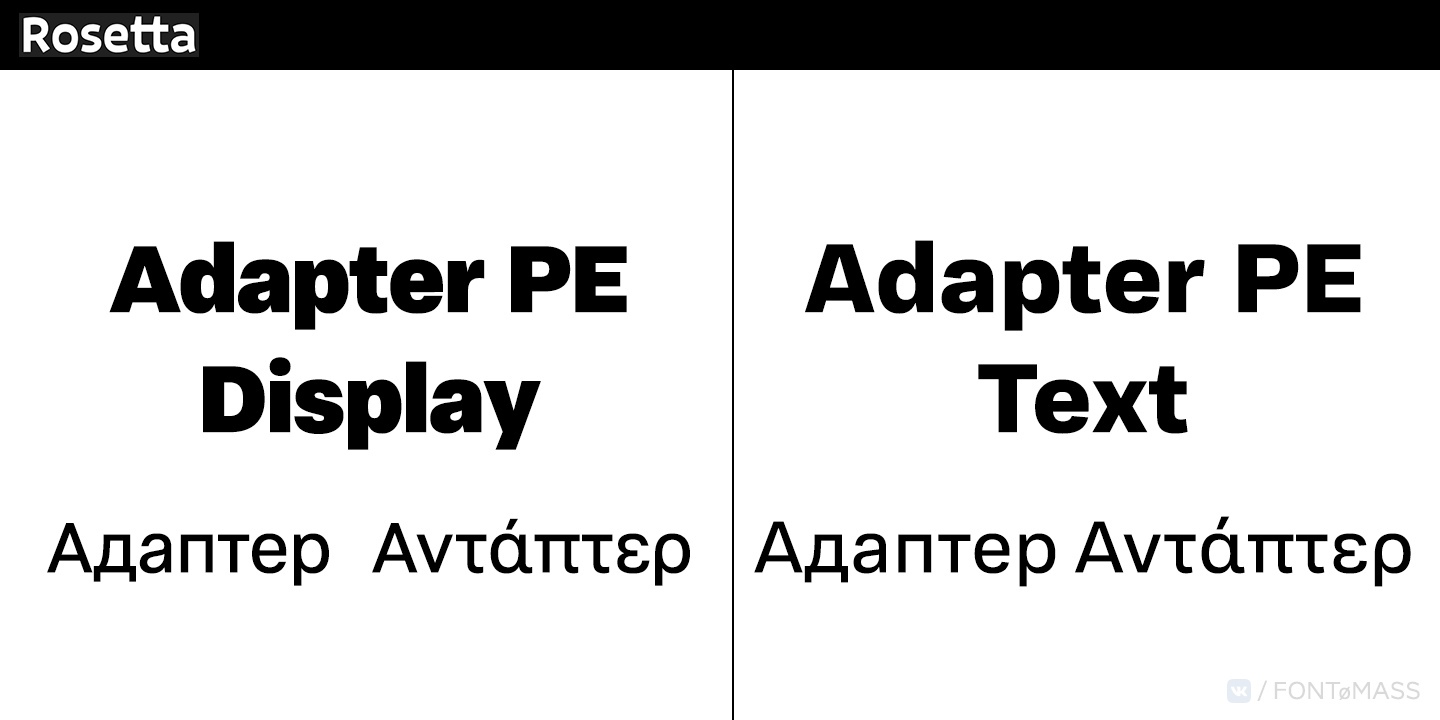
Adapter PE Font
Adapter PE Font is perfect for flexible branding systems, versatile marketing materials, adaptive web interfaces, responsive app design, modular packaging solutions, scalable corporate identities, dynamic presentation templates, multi-platform communications, customizable digital experiences, and universal design applications.
What makes Adapter PE Font so exciting is its exceptional adaptability that seamlessly adjusts to any design context while maintaining consistent quality and professional excellence across all applications. This versatile typeface embodies design flexibility and universal functionality, creating typography that works harmoniously with diverse visual systems and evolving brand requirements.
The Adapter PE Font family includes thin, light, regular, medium, bold, and black weights, complete with adaptive design features, flexible styling options, and versatile characteristics that provide designers with comprehensive tools for creating scalable and memorable typography that adapts perfectly to any design challenge.
The intelligently designed letterforms of Adapter PE Font showcase adaptive elegance with versatile character that creates instant recognition of professional quality and design flexibility. Each character displays meticulous attention to maintaining the consistent excellence that defines reliable typography while ensuring superior adaptability and professional versatility across all applications. The font's flexible construction and adaptive spacing contribute to its universal functionality and scalable appeal.
Multi-platform brands and design-conscious organizations consistently choose Adapter PE Font for projects requiring exceptional versatility and adaptive sophistication. The comprehensive character set includes uppercase and lowercase letters, numerals, extensive punctuation, international accents, and adaptive elements that provide complete support for flexible branding applications and scalable design systems.
The universal adaptability of Adapter PE Font ensures exceptional performance across all current and emerging platforms and technologies. Whether developing flexible brand identities, creating adaptive marketing systems, or designing scalable interface solutions, this remarkable typeface delivers consistent excellence that adapts seamlessly to any requirement while maintaining professional quality and visual integrity.